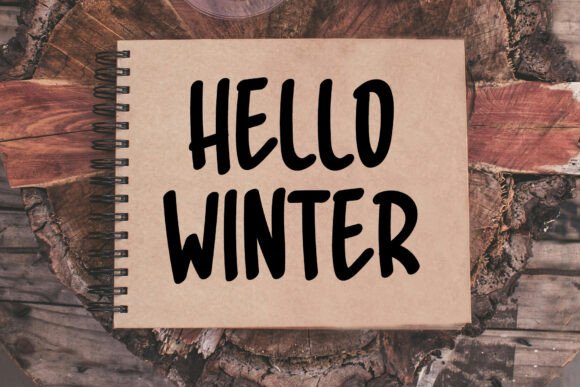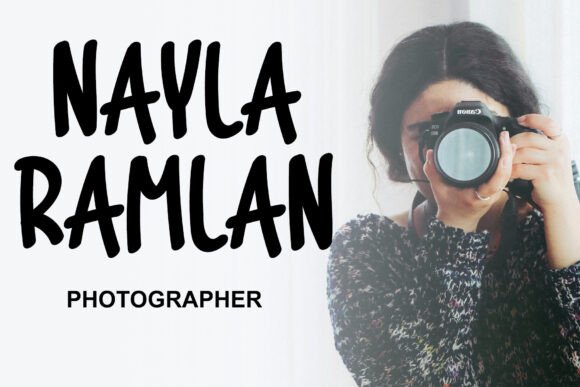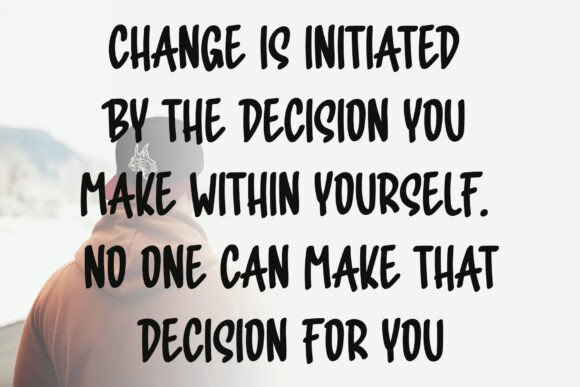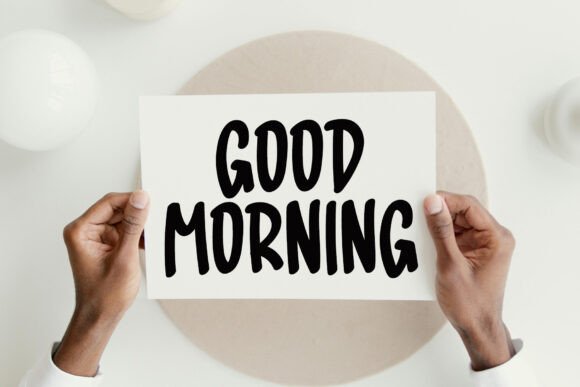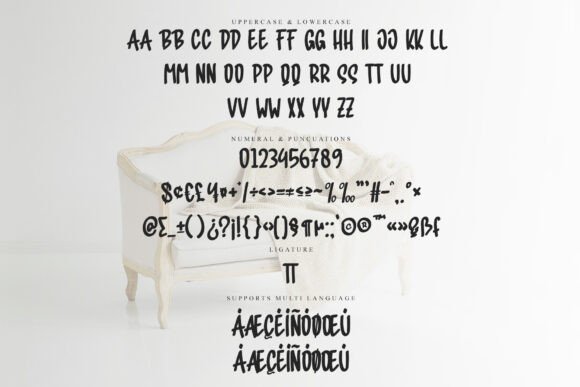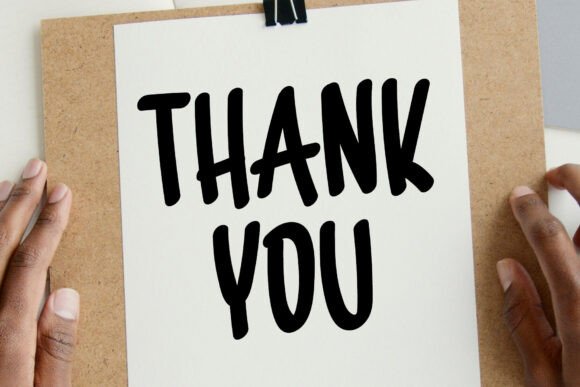
The Magic of Frosty Gnomes Font: Elevate Your Designs with Whimsy and Elegance
I’ll never forget the moment I stumbled upon the perfect font for a client’s project. It was as if the stars aligned, and my design worries disappeared. I was working on a whimsical DIY craft project, and my client requested a font that was both elegant and playful. After hours of scouring the internet, I finally found Frosty Gnomes Font. It was love at first sight! In this article, I’ll share my experience with this magical font, its features, and how to make the most of it in your designs.
An Honest Review of Frosty Gnomes Font
Frosty Gnomes Font has been a game-changer for my designs. Here’s what I love about it:
• ✨ Elegant and whimsical at the same time, making it perfect for a variety of projects
• ✅ Highly legible, even at small font sizes
• 🌈 A beautiful range of OpenType features, glyphs, and stylistic alternates to add a personal touch
While Frosty Gnomes Font is a stunning addition to any design, there are a few minor quirks to consider:
• 🤔 Some users may find the font a bit too ornate for very simple designs
• ⚠️ Limited kerning options, which can be a minor issue for certain projects
The Story Behind Frosty Gnomes Font
Frosty Gnomes Font was created by a talented type designer who drew inspiration from mythical creatures and winter wonderlands. The font’s intricate details and elegant lines are a testament to the designer’s passion for whimsy and beauty.
Author YanStudio
Is Frosty Gnomes Font suitable for body text? While Frosty Gnomes Font is highly legible, it’s best suited for headings and titles due to its ornate nature.